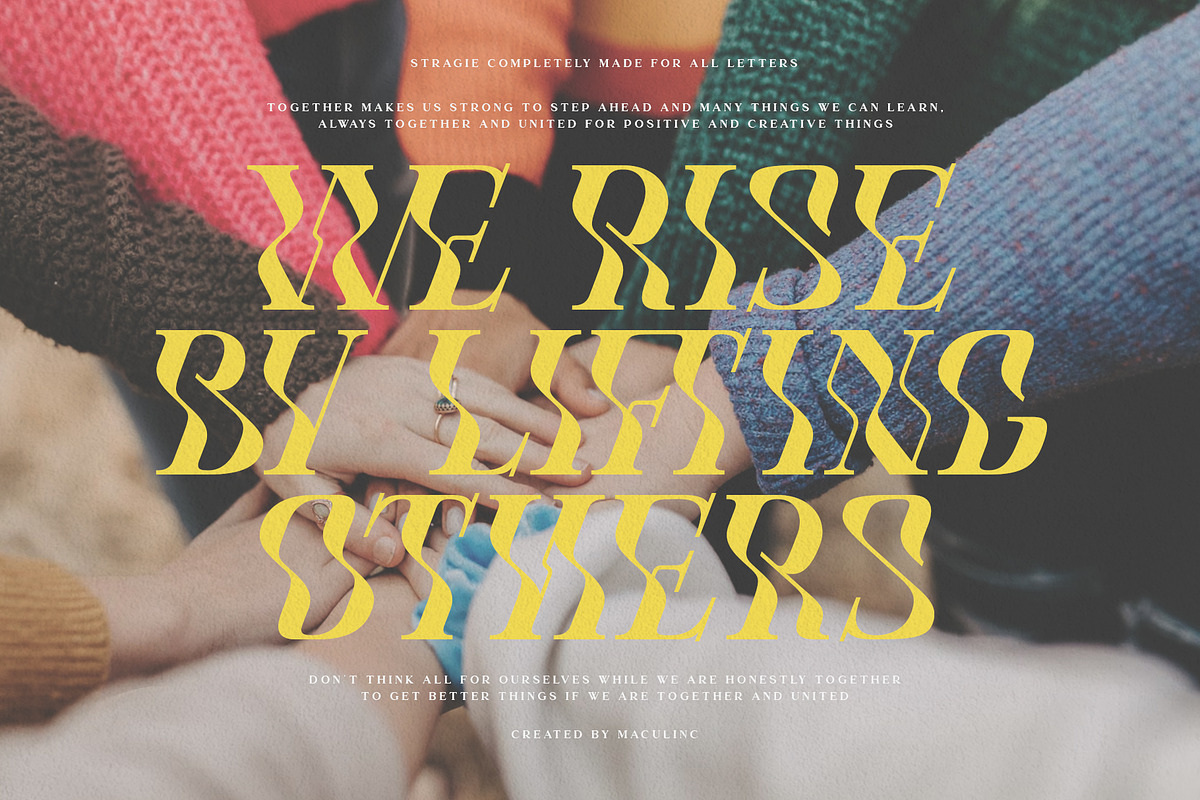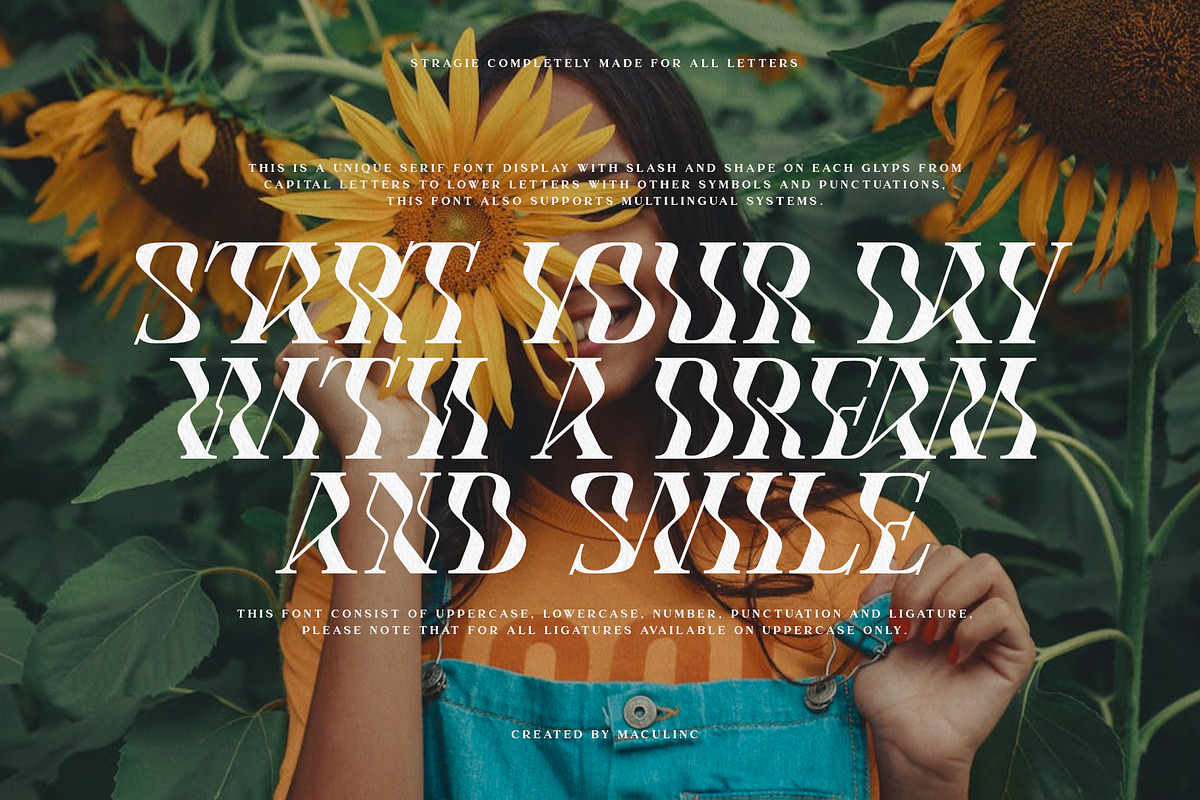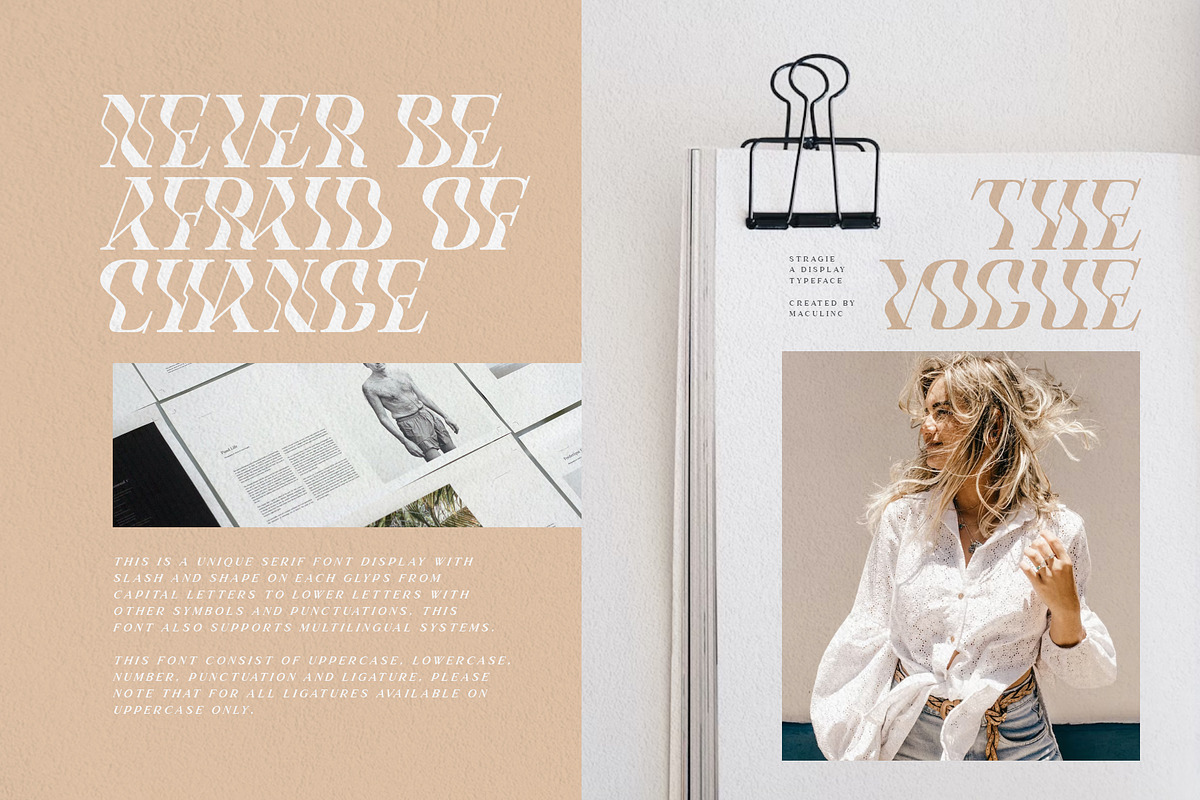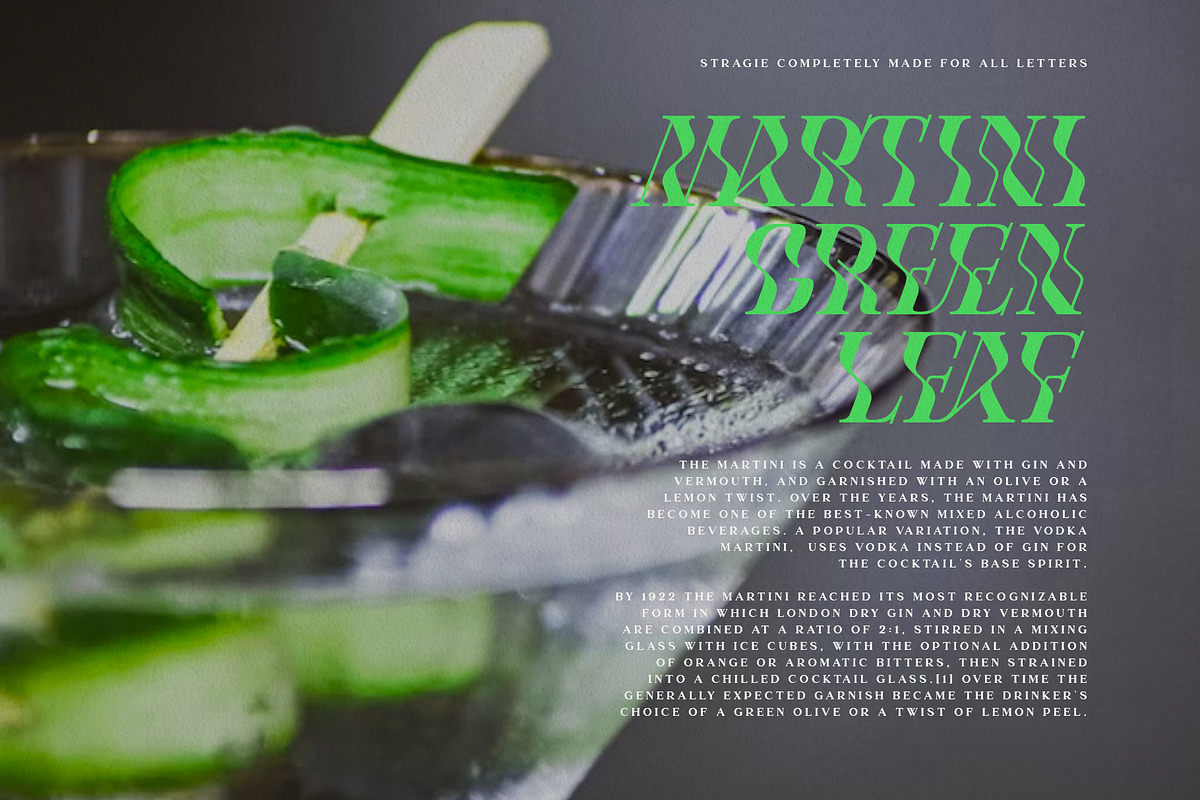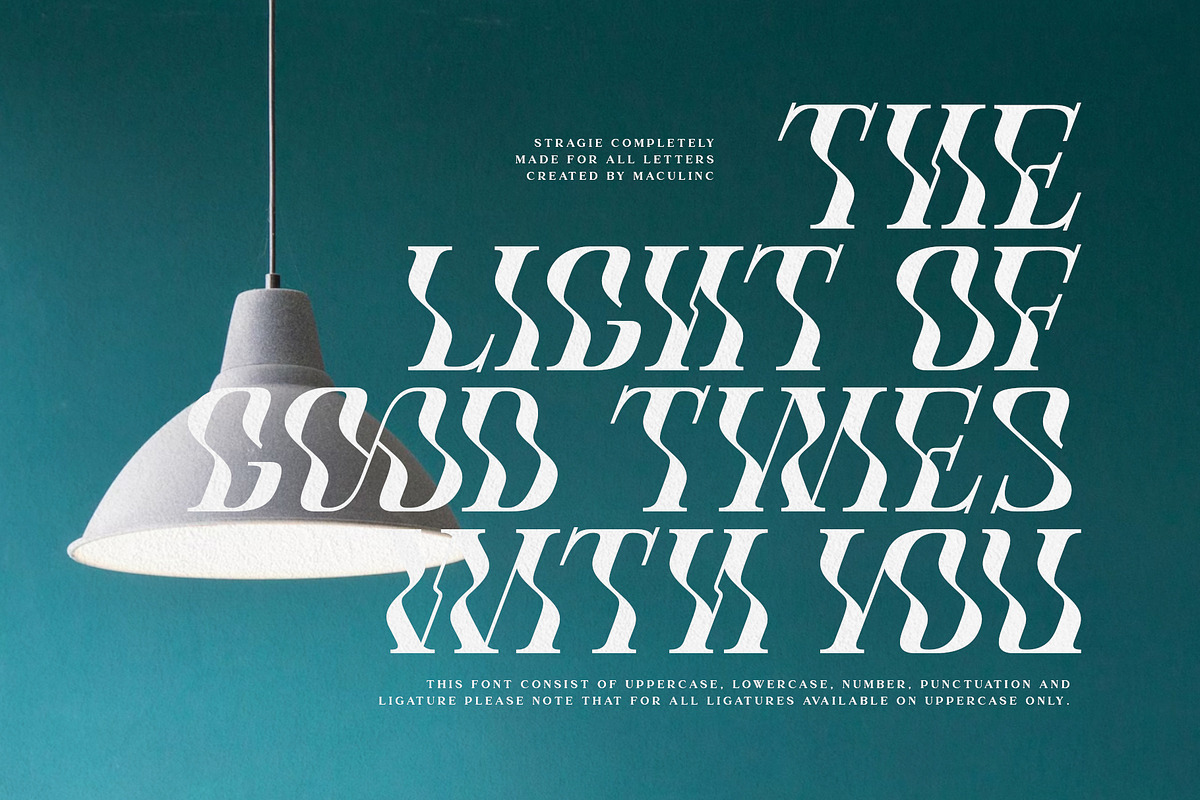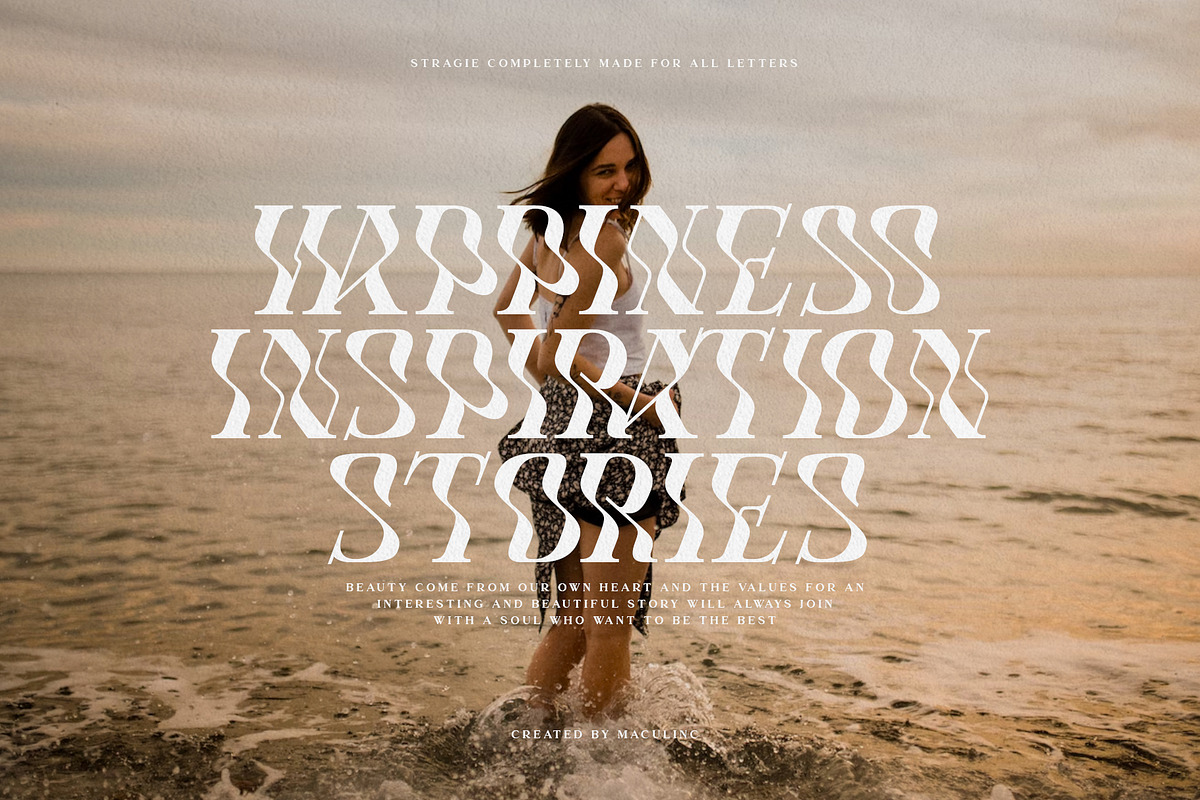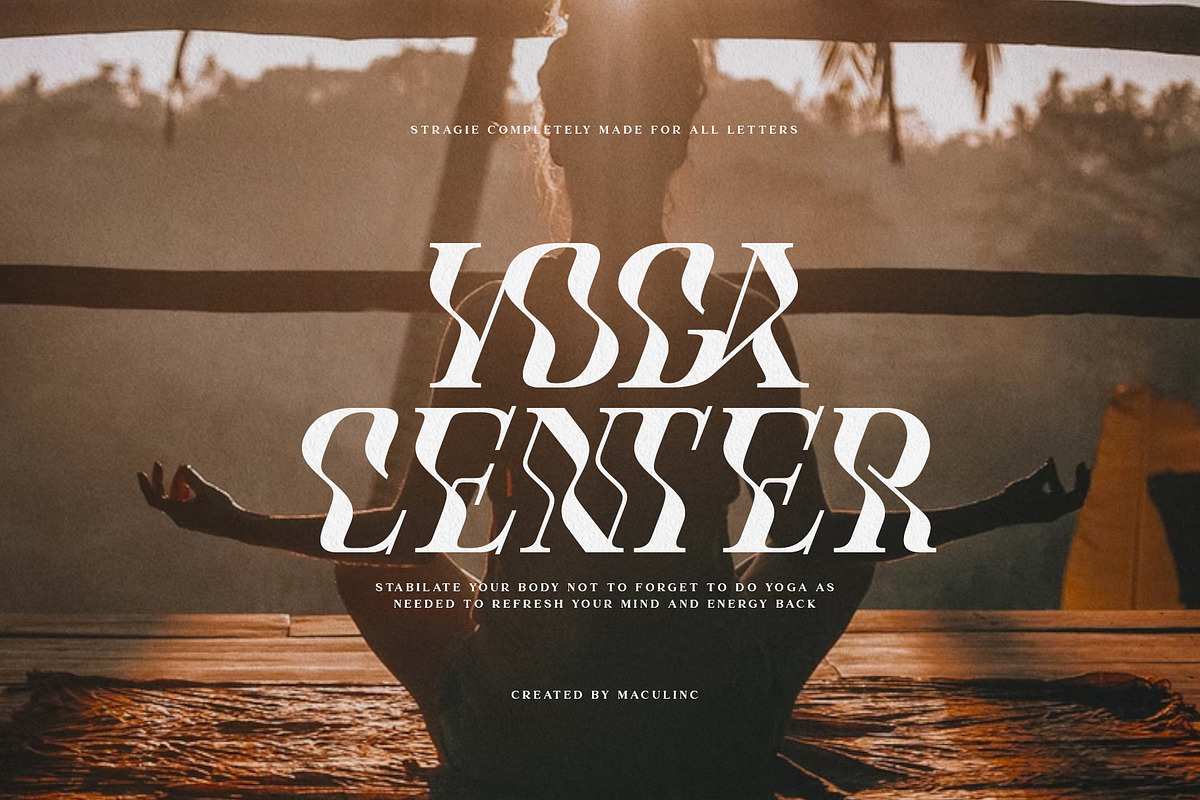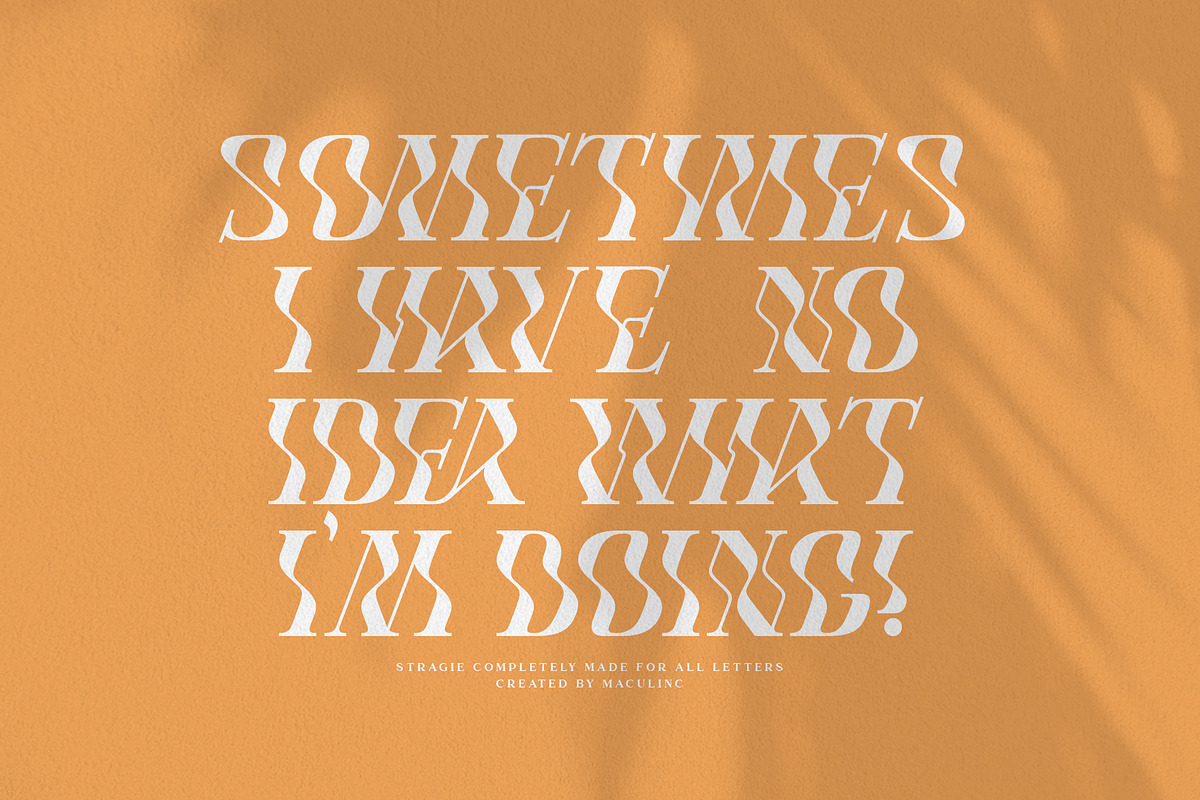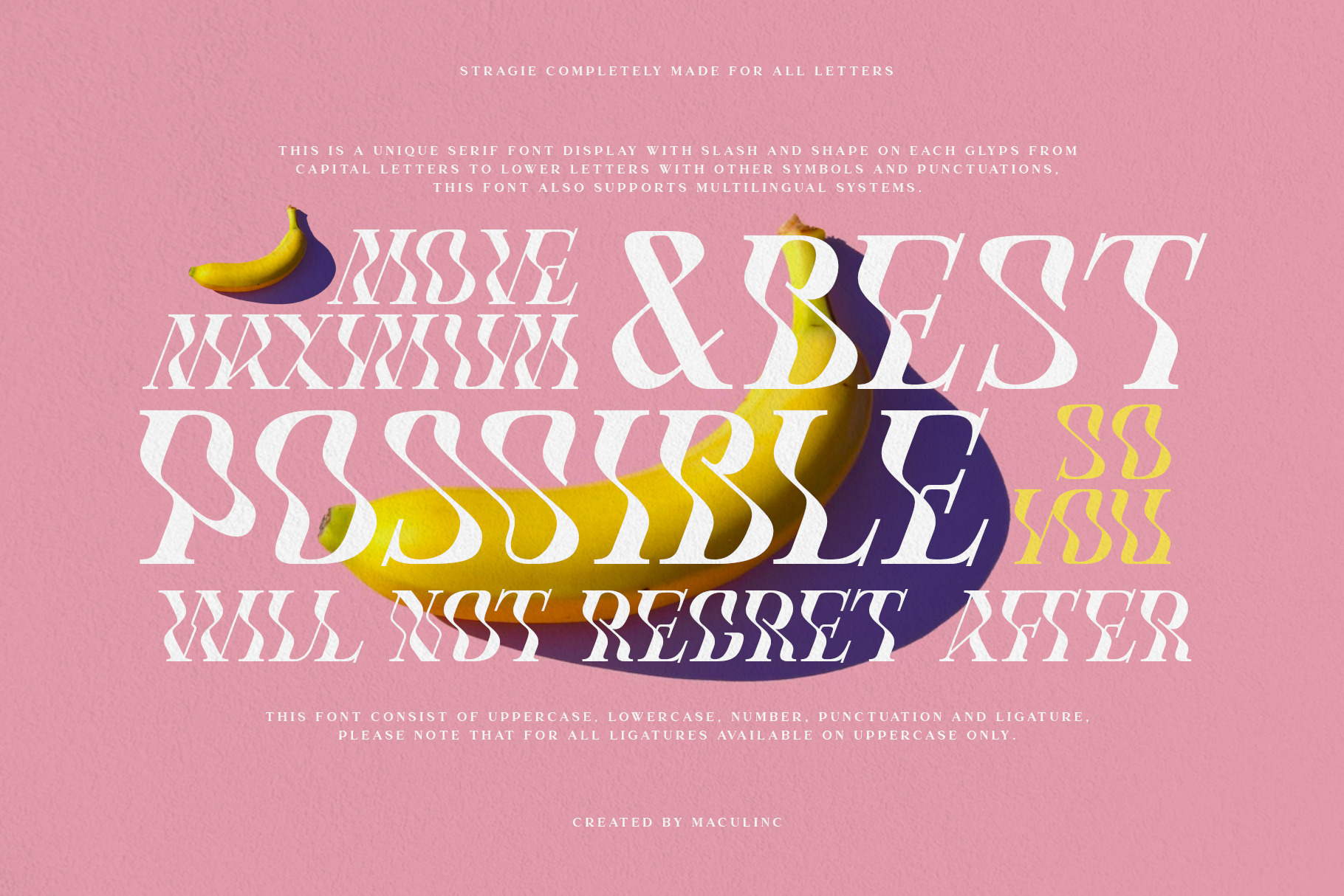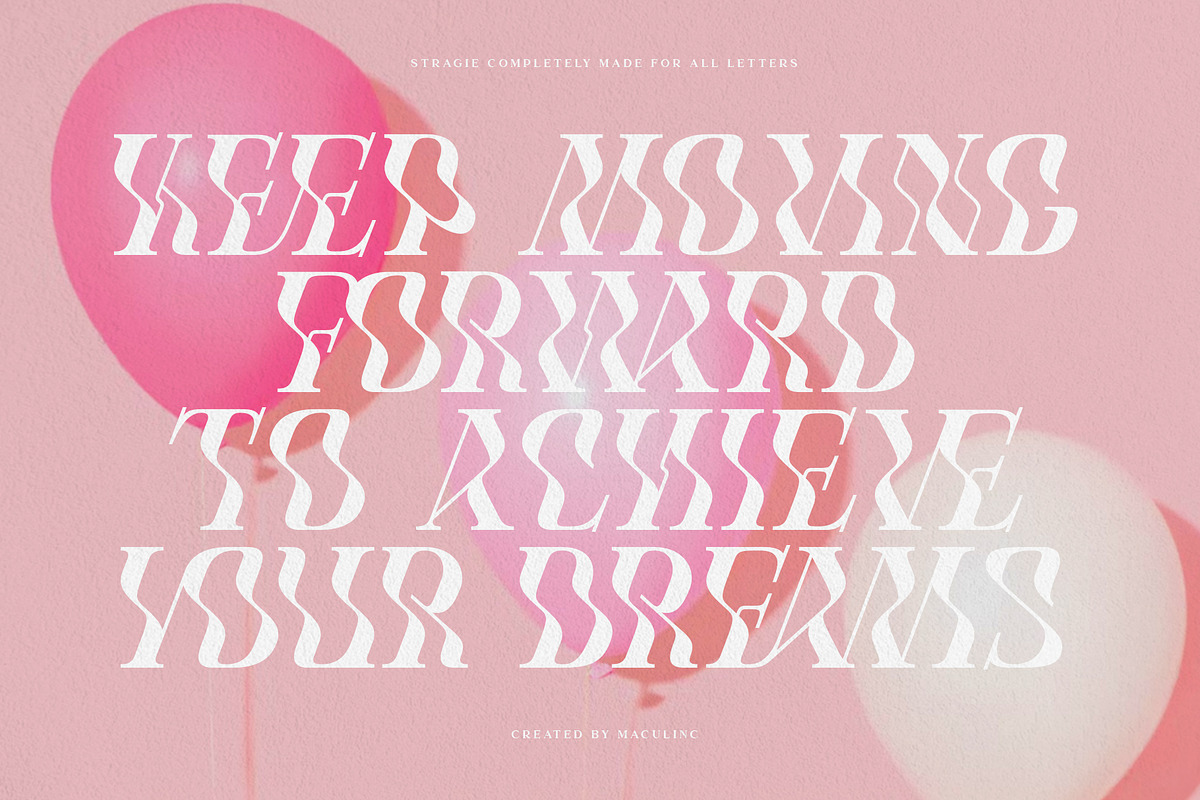
Stragie - Display Font
Stragie is a unique serif font display with italics and formed on each glyps of uppercase letters, lowercase letters, numbers, symbols and other punctuation marks. For Uppercase and Lowercase made in the same form, this font also supports Multilingual system.
Stragie consists of Uppercase, Lowercase, Numbering, Punctuation and Ligature. Please note that all available Ligatures are in Uppercase only.